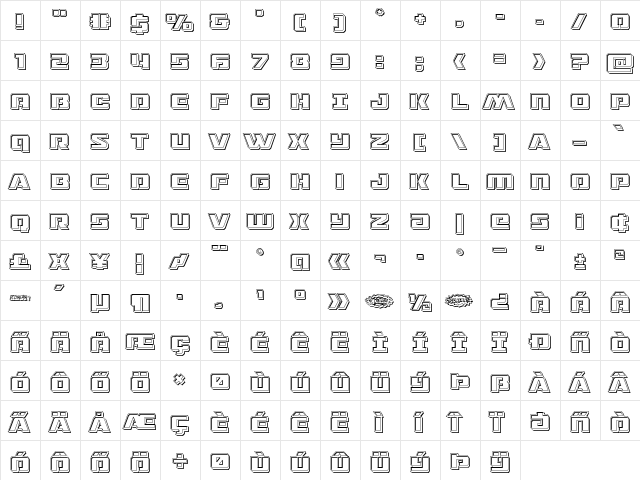
Drone Tracker Engraved Regular
Design Context for Drone Tracker Engraved Typeface
Drone Tracker Engraved brings ornamental detail and strong personality to headlines and identities, where visual impact matters more than quiet functionality.
Font Pairing: Pair with a clean neutral sans-serif for body copy to let Drone Tracker Engraved's character lead without overwhelming the composition.
Pro Tip: Use Drone Tracker Engraved exclusively at display sizes — it was designed to be seen, not read at length. Let a neutral companion handle body copy.